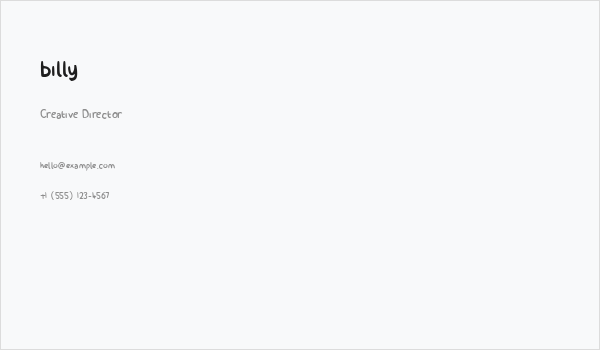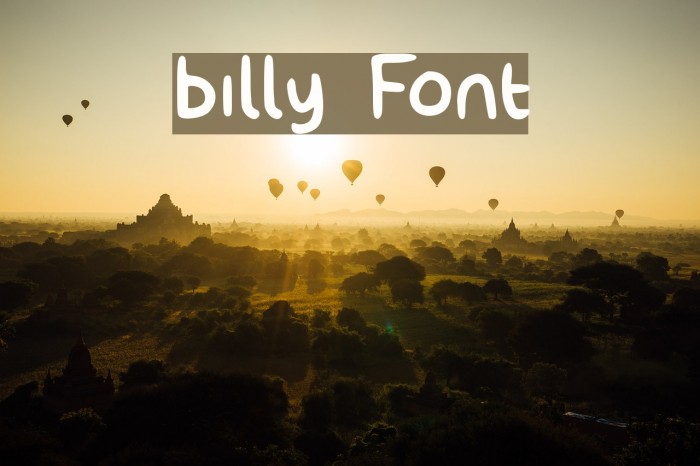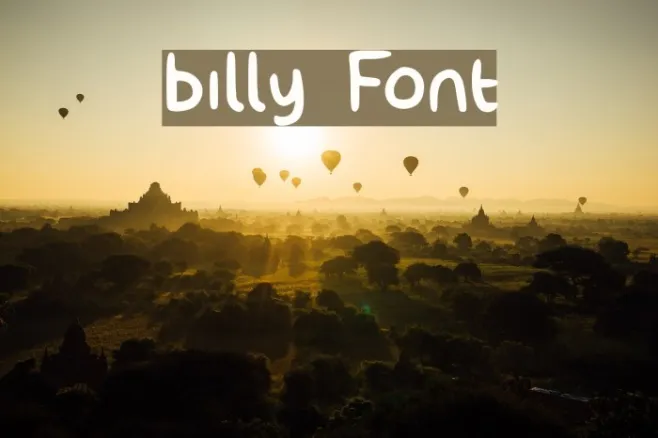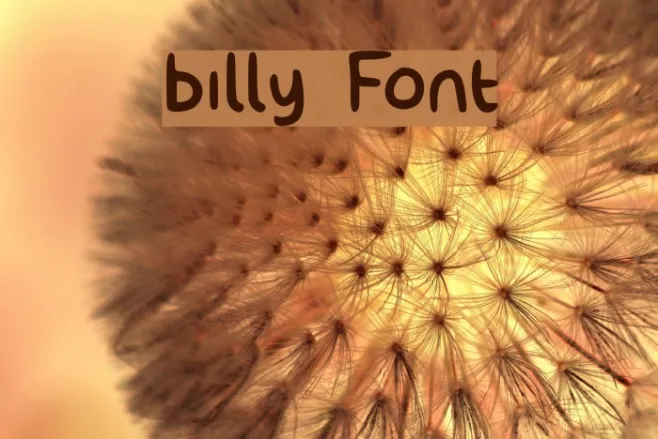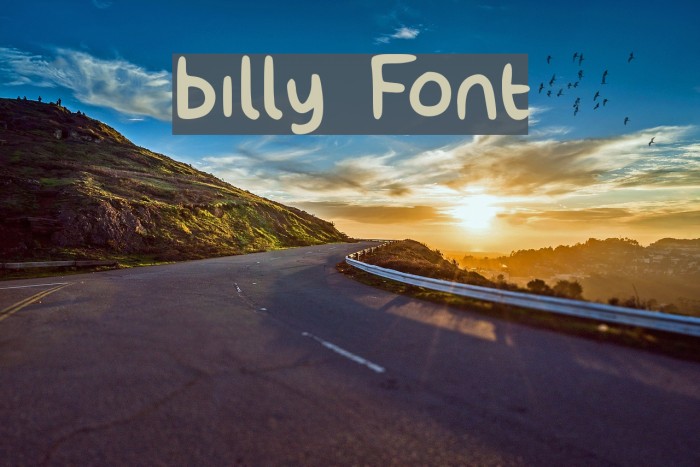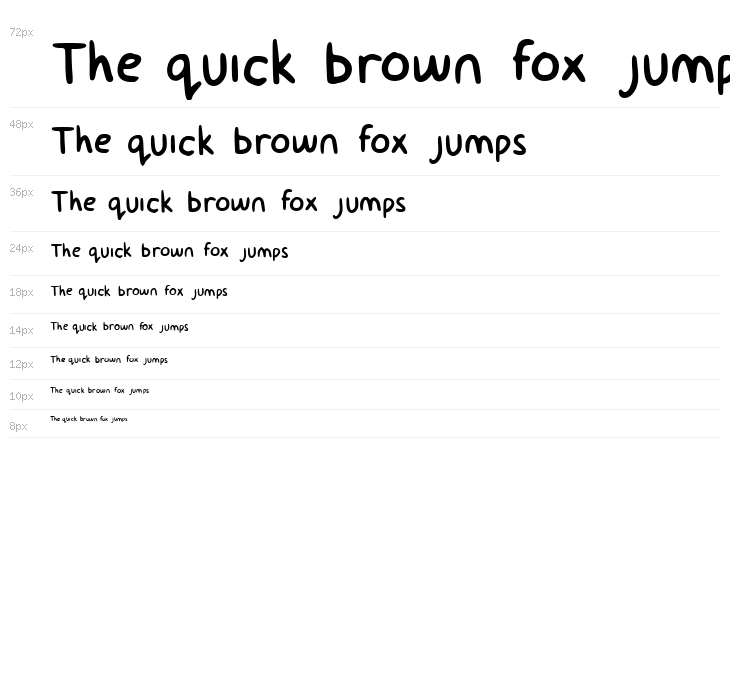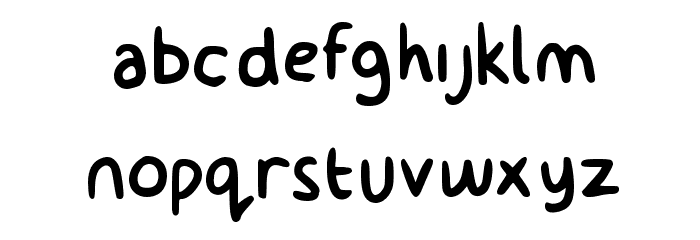
billy Font
billy Description
This font features a playful and informal style, characterized by its rounded and slightly irregular letterforms. The strokes are consistent in weight, giving it a uniform appearance, while the rounded edges add a friendly and approachable feel. The characters are well-spaced, ensuring readability, and the overall design is reminiscent of handwriting, making it suitable for casual and creative projects. The numerals and special characters maintain the same playful aesthetic, contributing to a cohesive look across all elements.
| Overall Style | Casual |
| Use Case | Headlines, Informal text, Creative projects |
| Proposed Projects | Ideal for children's books, greeting cards, casual branding, and playful social media graphics. |